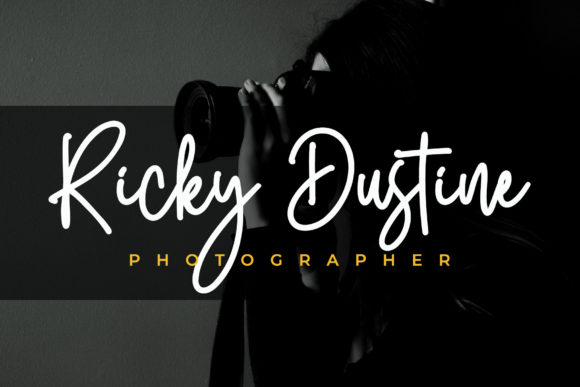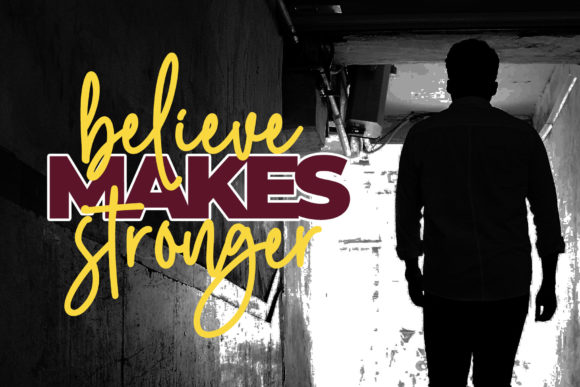
All Night Font
db-ku.com - Script & Handwritten -- All Night is a modern and casual handwritten font. It is elegant and classy yet it maintains its relaxed vibe.